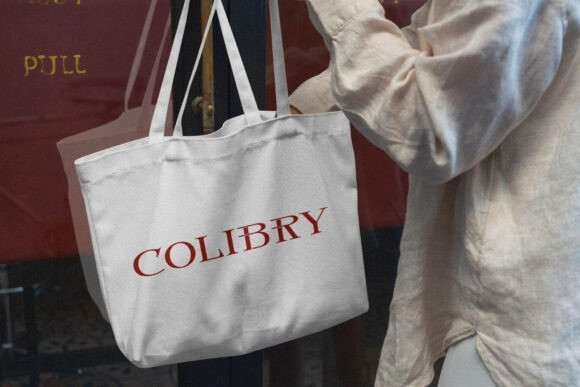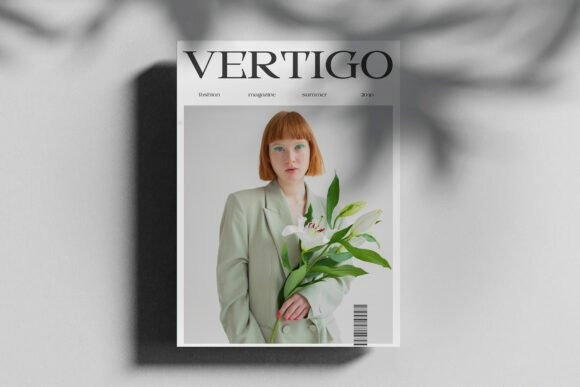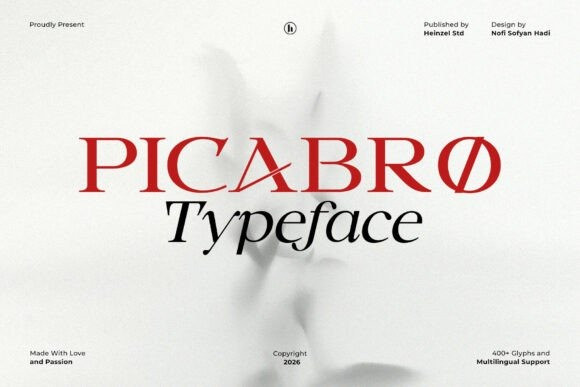
Picabro Font
Picabro Font is a refined and contemporary serif typeface that blends timeless elegance with modern sophistication. Designed with high-contrast strokes, sharp serifs, and distinctive letterforms, Picabro delivers a luxurious and editorial feel. Its unique character details—such as the stylish diagonal accents and expressive curves—add personality while maintaining clarity and readability.